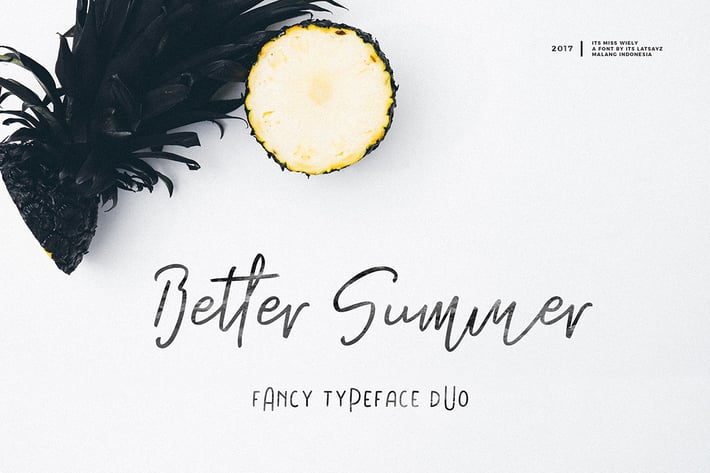
Its Miss Summer Font Duo
holla Its Miss Summer here, a fancy typeface duo perfect for your next project.
Miss Summer great for wedding, event, invitation, escort card, table number, header menus, display, logos, slider blog, custom address, stamps, packaging, greeting card, etc.
Miss Summer Features :
+ Uppercase
+ Lowercase
+ PUA Encoded
+ Ligatures